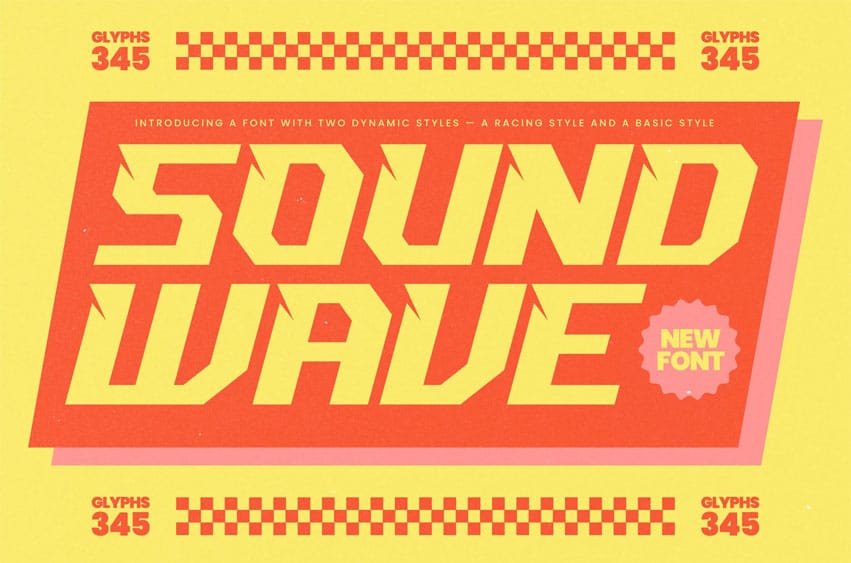
Sound Wave Font
Sound Wave Font is a bold display font with a modern geometric style and playful personality. Designed to make headlines stand out, Monilora combines clean shapes with strong curves, making it perfect for branding, posters, packaging, and editorial design.
Its stylish ligature support adds a unique character to every composition, giving your typography a bold yet friendly look. Ideal for designers seeking a typeface that balances creativity and clarity, Monilora brings energy and confidence to any visual project.